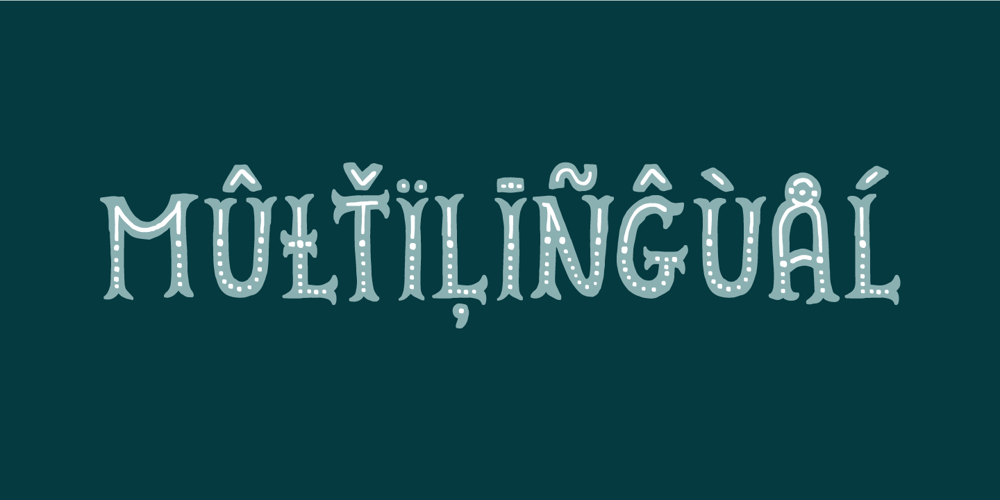
Cirkus Fantastiko Font Family was designed by Jakob Fischer and published by PizzaDude.dk. Cirkus Fantastiko contains 3 styles and family package options. The other day I was at a market with my kids and they had this really retro kind of circus thing. The signs and posters there, were designed in a really sloppy and poor manner – but they all had a lot of naive charm! I was really fascinated by all these uneven letters and I was immediately inspired to do a font like that! And out of the magic hat comes…ta-da-da-da…Cirkus Fantastiko! Planning on throwing a party with a circus theme? Then Cirkus Fantastiko is ready to play the juggling clown while riding the elephant! Play around with the 3 different layers to create that low budget hand painted cirkus posters! 🙂